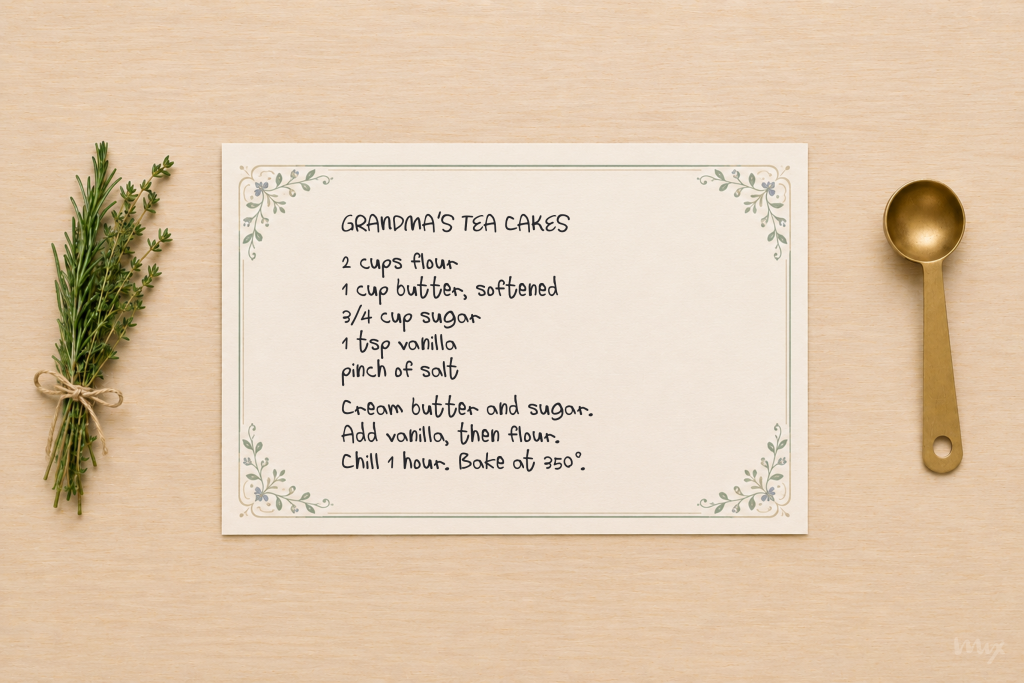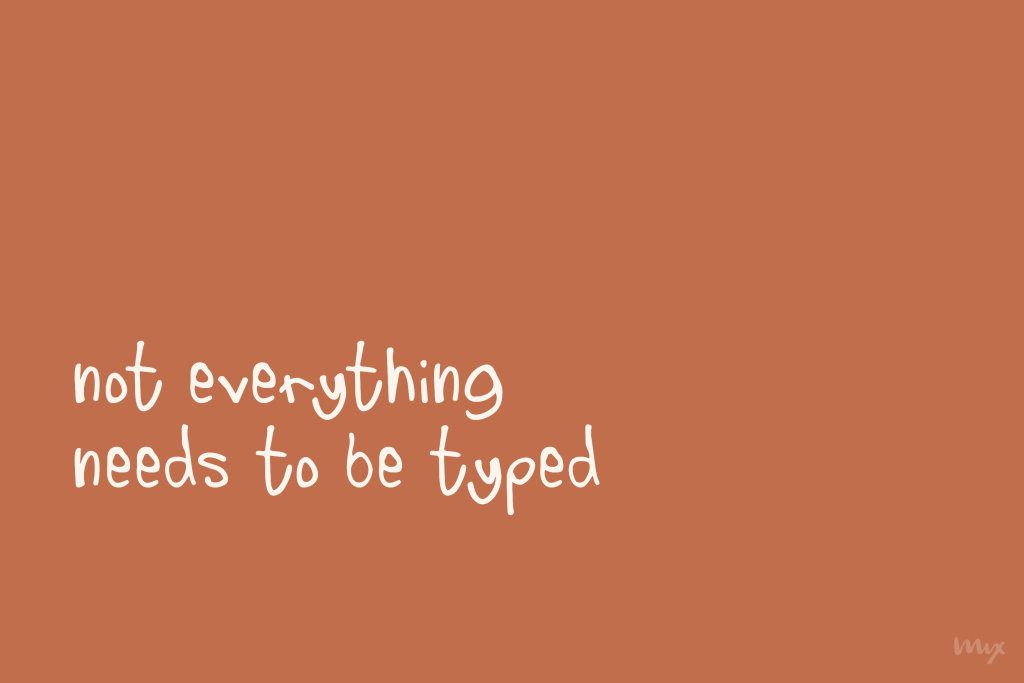
Mix Penfriend
Chunky, rounded, a little wobbly. The handwriting of someone who writes actual letters.
Mix Penfriend is a chunky handwritten font with thick, rounded strokes and just enough wobble to feel genuinely written, not constructed. The mixed cap heights and slightly uneven baseline give it that authentic pen-to-paper quality, the kind of handwriting you’d recognize on an envelope.
It comes with an extensive character set, covering multilingual support, making it more versatile than it looks at first glance.